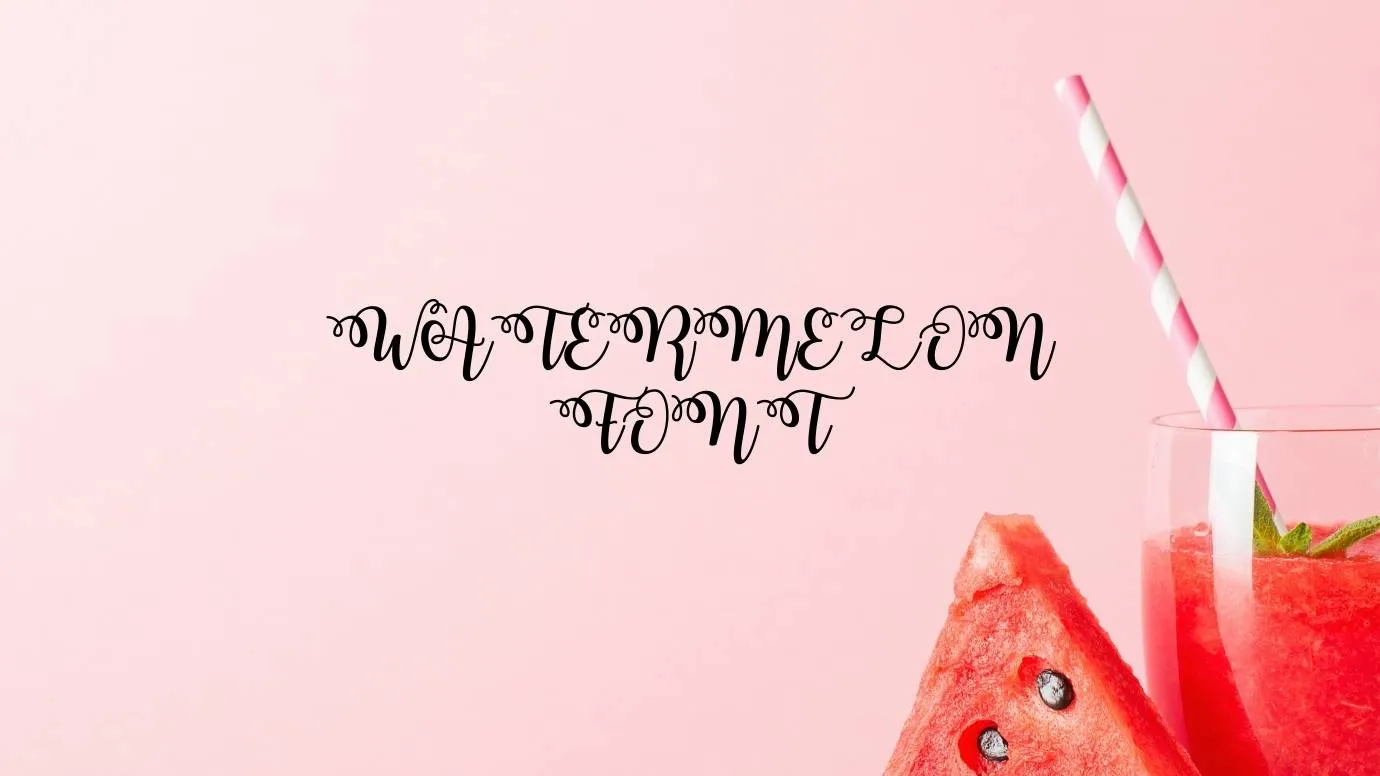
Watermelon Font Family is a remarkably cool script font loaded with incredible features. This stylish, hand-drawn font family was created by a female designer from Germany, known as Misti.
The styling of this font is also great for pairing fonts. This is well-known for its copy-paste tasks. Great Vibes font is very close to this typeface due to its same feature and styles.
Watermelon Font Family